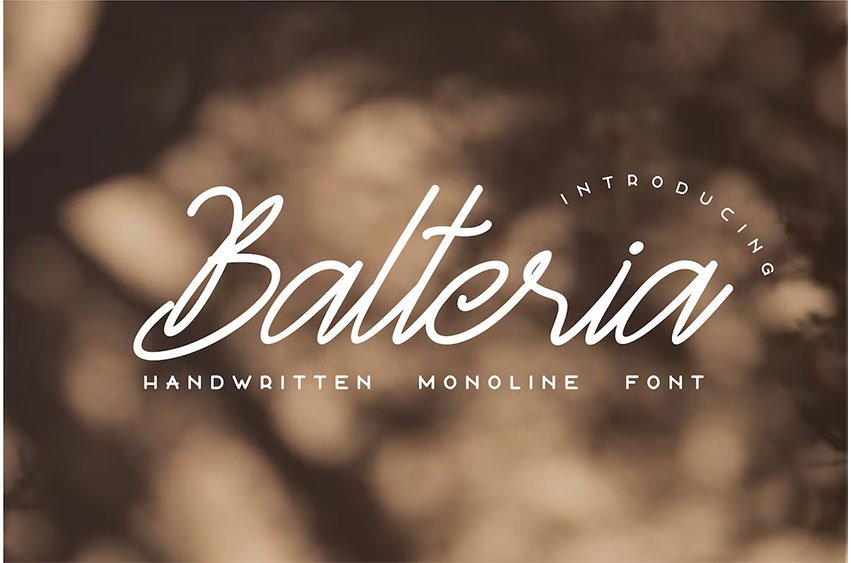
Balteria Sulbarline Font It has a elegant, classy look and modern. It’s a great font for fashion, apparel projects, signature, album cover,logo, branding, magazine, social media, & advertisements, but also works great for other projects.